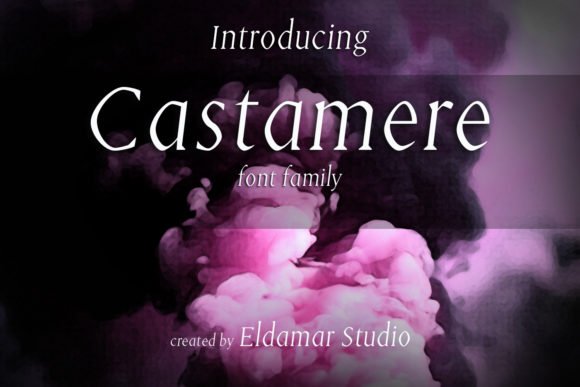
Enter the Castamere Font, a minimalist serif font that is sure to catch your eye. Designed with elegance and simplicity in mind, this font is perfect for a wide range of designs, from elegant invitations to modern logos. Its neat and simple style makes it a valuable addition to any designer’s toolkit, offering endless possibilities for creativity and expression.
With the Castamere Font, you’ll be able to bring your design ideas to life in a way that’s both beautiful and effective. Whether you’re a seasoned designer or just starting out, this font is sure to become your go-to companion for all your design needs.
Castamere Font Key Features
- Unique Characteristics: The font features a distinctive, hand-drawn style with intricate details and flourishes, making it ideal for titles, headings, and decorative text.
Castamere Font Review
Overall, I’m impressed with the Castamere Font, but it’s not without its quirks.
✨ The font’s intricate details and ornate feel are perfect for creating luxurious and high-end designs. It’s especially great for branding and advertising materials where a touch of elegance is needed.
- ✨ Excellent for use in serif-based typography, Castamere Font shines in situations where a classic, sophisticated look is desired.
- ✨ The font’s versatility allows it to be used in a wide range of design contexts, from magazine headlines to book titles.
⚠️ One of the main drawbacks of Castamere Font is its readability at smaller font sizes. The intricate details can make it difficult to read in certain situations.
- ⚠️ Additionally, the font’s ornate feel can sometimes feel overwhelming or even gaudy, so it’s essential to use it judiciously.
- ⚠️ The font’s weight and line width can be inconsistent at times, which may require some extra adjustments in the design process.
I would highly recommend Castamere Font for any designer looking to add a touch of luxury and sophistication to their work. While it may have some limitations, the font’s unique charm and versatility make it a valuable addition to any design toolkit.
Castamere Font is ideal for creating elegant and sophisticated designs. Use it for:
- Business cards and letterheads.
- Magazine and newspaper headlines.
For the most striking results, pair the Castamere Font with a contrasting background color and use it in combination with other elegant fonts.
Yes, the Castamere Font is highly customizable. You can adjust the font’s size, color, and spacing to fit your design requirements. Additionally, the font’s OpenType features allow you to access advanced typographic controls, such as ligatures and swashes, to add an extra layer of sophistication to your designs.